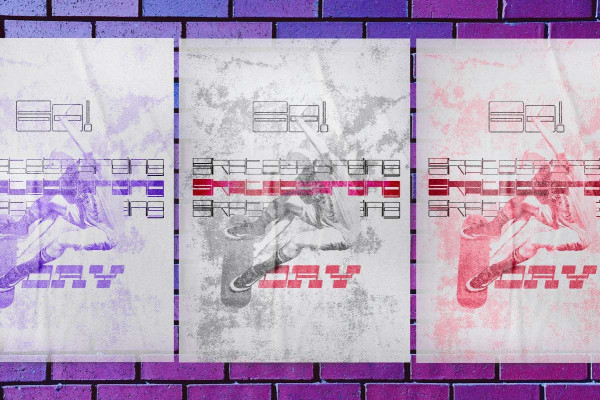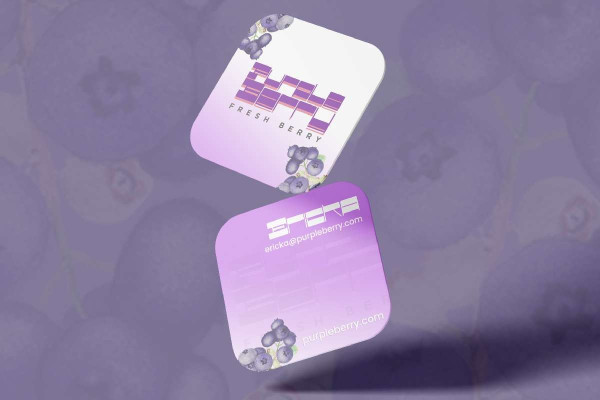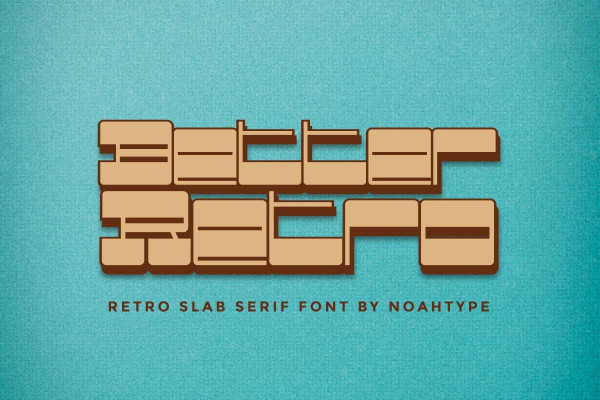
Better Retro Font
Better Retro Font is a retro display font that will bring you back to the 80s feel. Inspired from retro typography and lettering in the 70’s and 80’s combine with bold unique typography style. The font is perfect for vintage and retro design, badge, logos, t-shirt, poster, branding, packaging, signage, book cover and so much more.
Better Retro Font includes full set of Uppercase and Lowercase Basic Characters, Numerals and Punctuation. The font has also three different styles: Italic, Outline and Regular . This font would be great to use any project that requires a effective look!